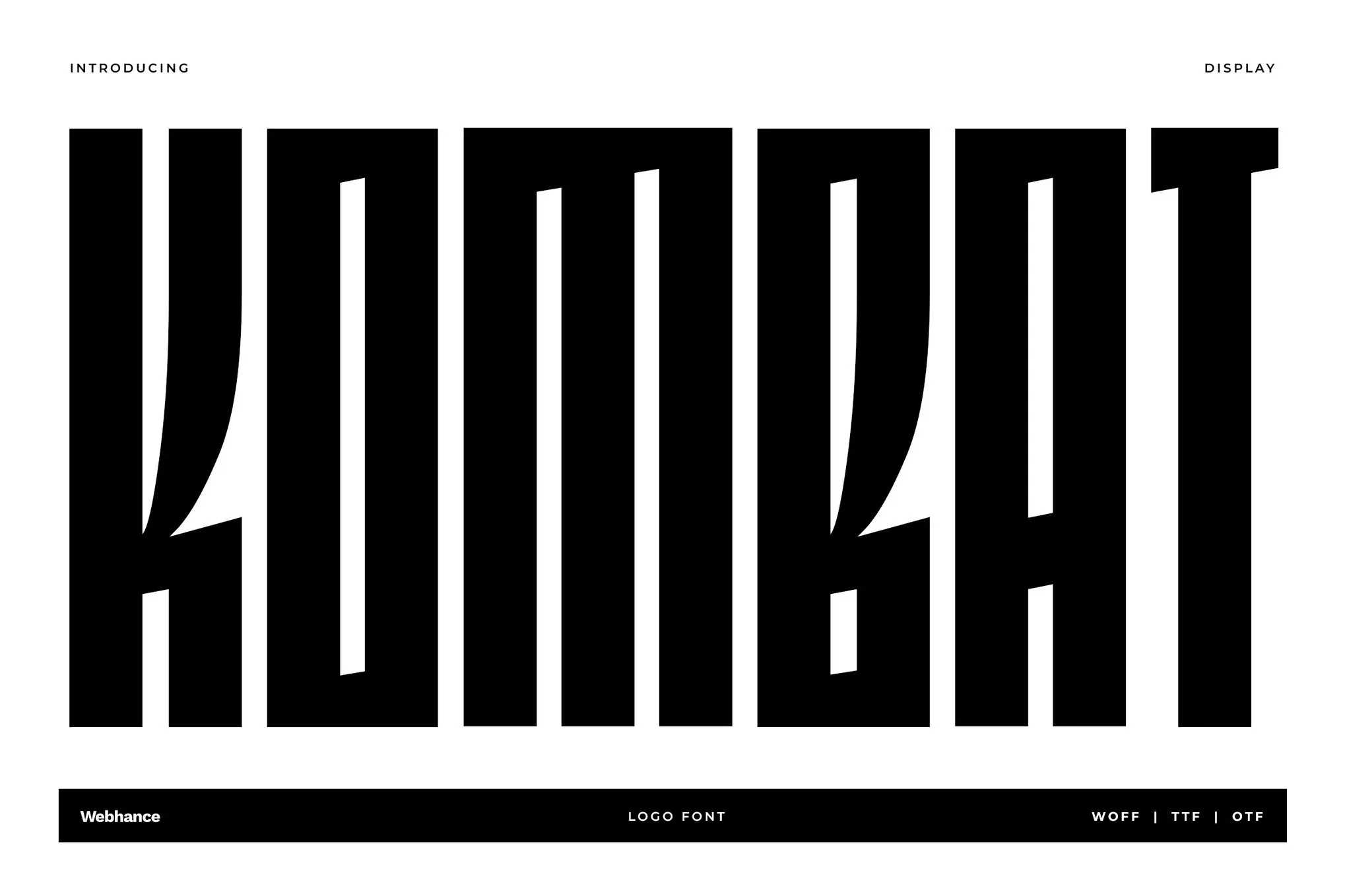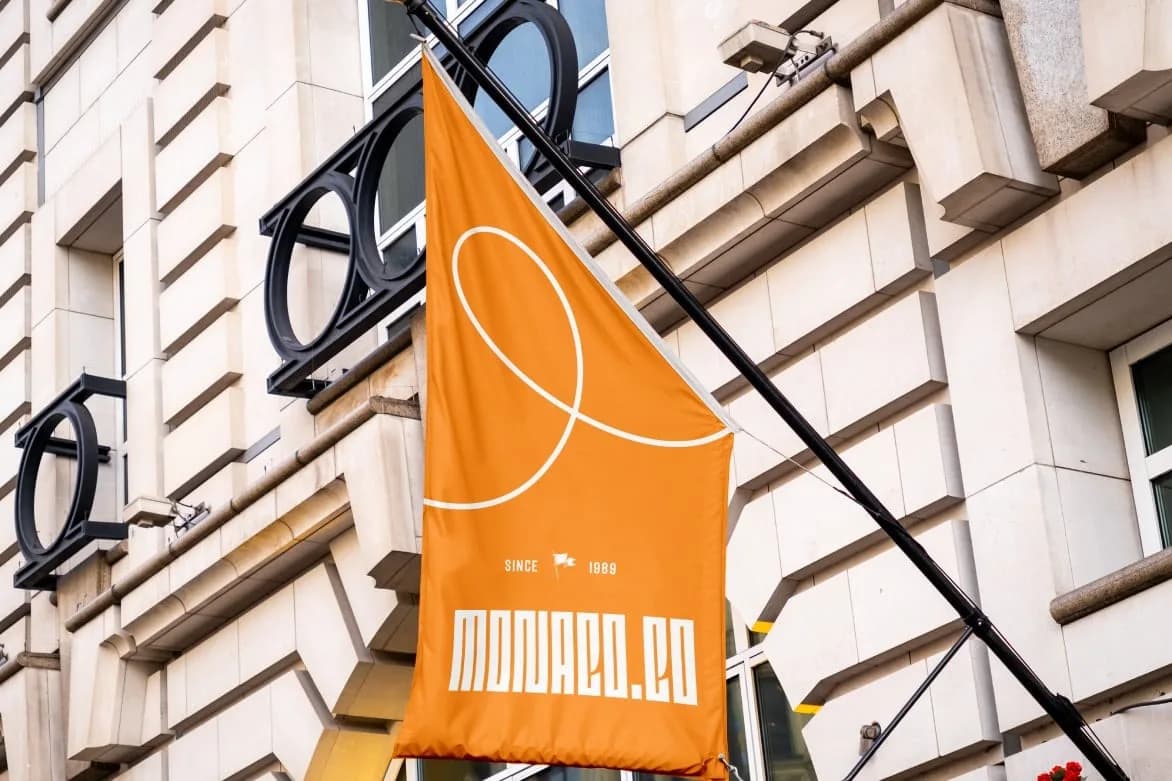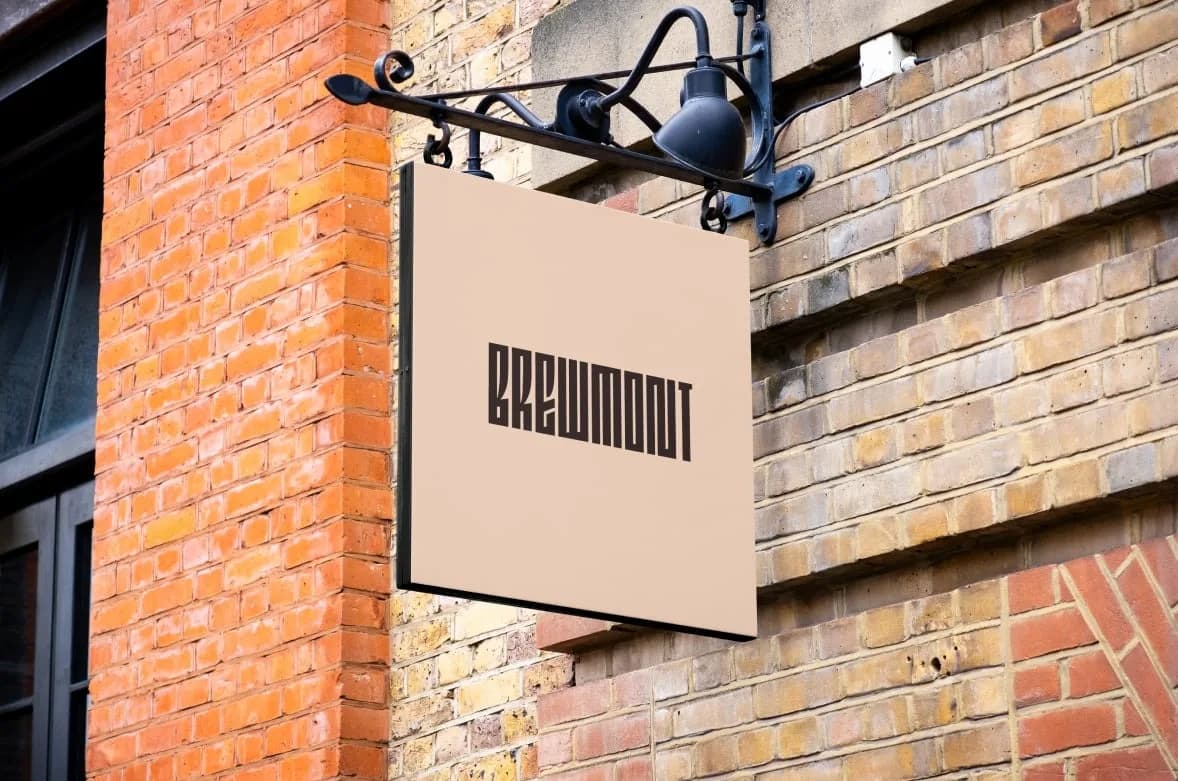
Edgar-Kombat
0Edgar-Kombat, a sans-serif display font, captures attention with its bold aesthetics and contemporary design. Crafted to embody a futuristic vibe, this font features tall letterforms that are meticulously kerned for optimal spacing and readability. The construction of Edgar-Kombat allows it to shine in various applications, making it a go-to choice for designers looking for a unique typeface that resonates with modern audiences.
With its strong personality, Edgar-Kombat is particularly suited for logofonts and headline use. Its distinctive character enhances branding projects, making it perfect for modern companies wanting to convey innovation and creativity. In the realm of marketing materials, this font excels in creating visually striking posters and promotional content, particularly for music events and social media platforms like Instagram and YouTube.
Edgar-Kombat is versatile enough to support various design needs, from packaging to editorial layouts. The font's Latin language support adds to its usability, ensuring that it can be adapted for a wide range of markets. Whether you're designing a dynamic landing page for a product launch or crafting an eye-catching title for an event flyer, Edgar-Kombat provides the modern edge necessary to elevate your design projects.